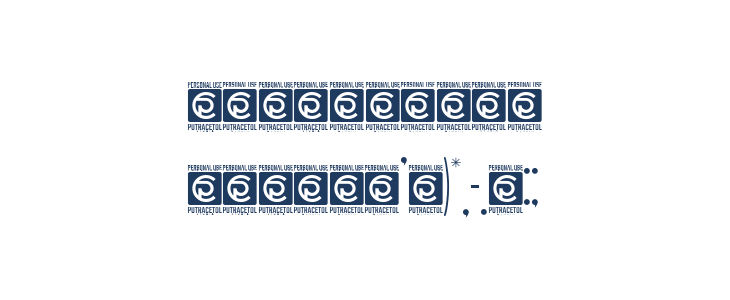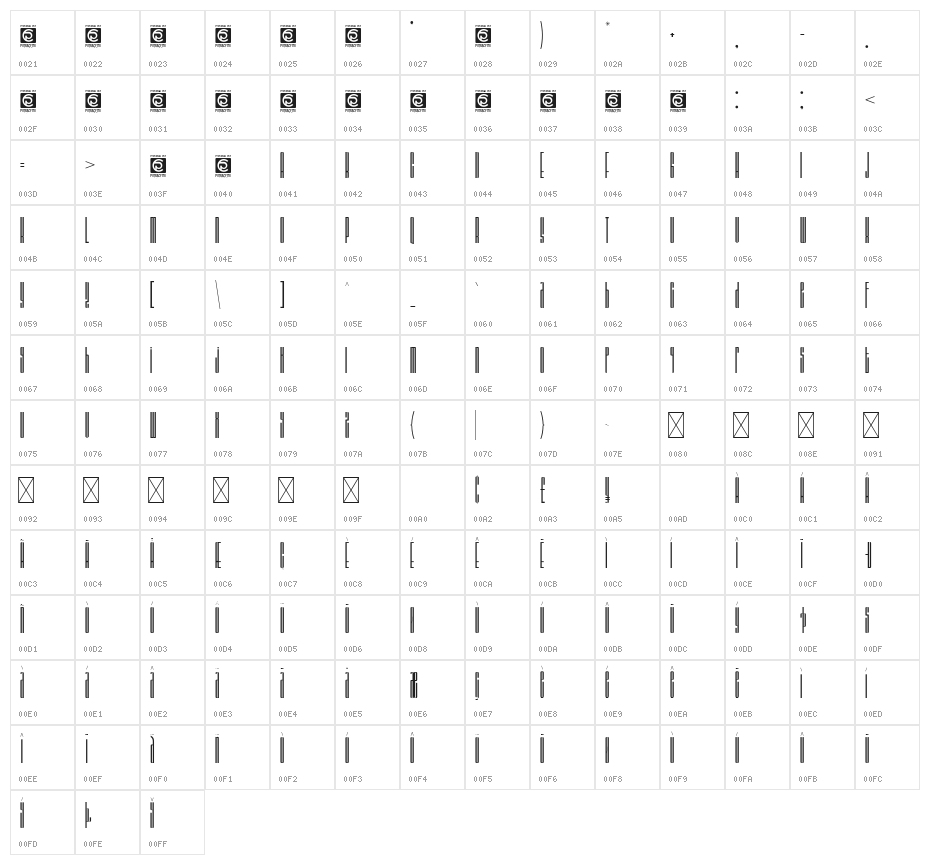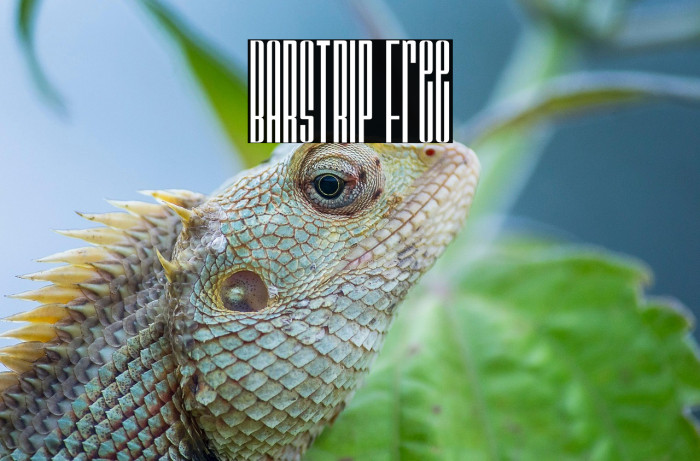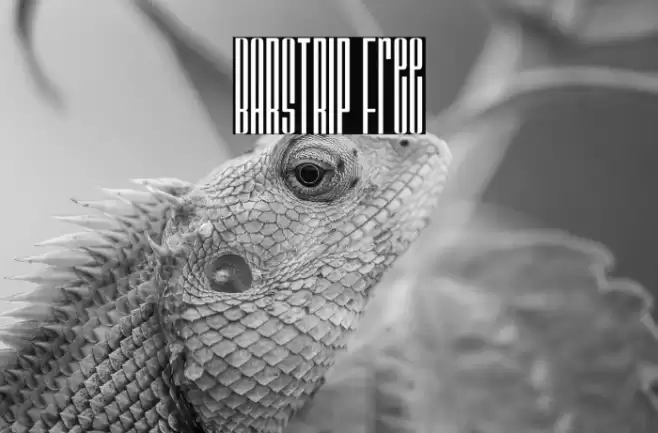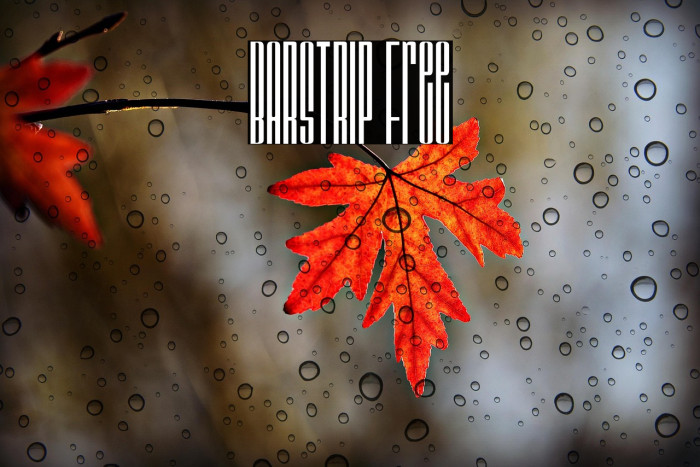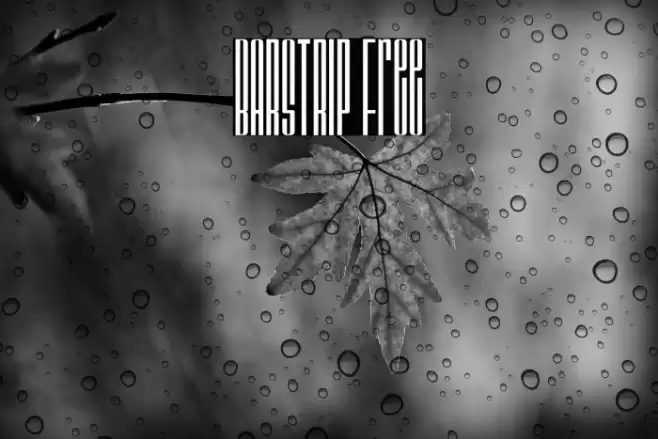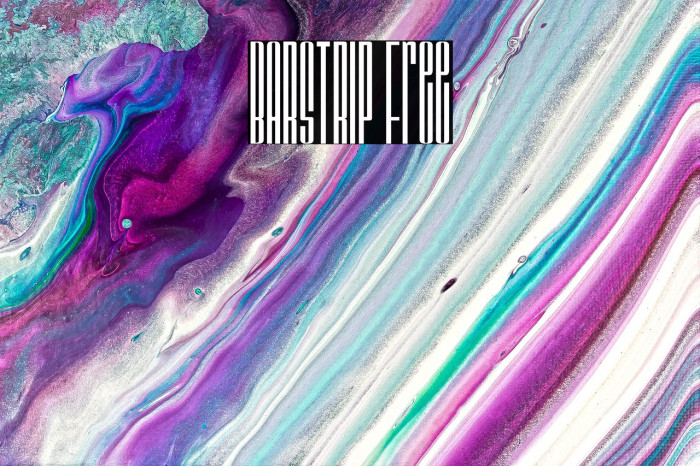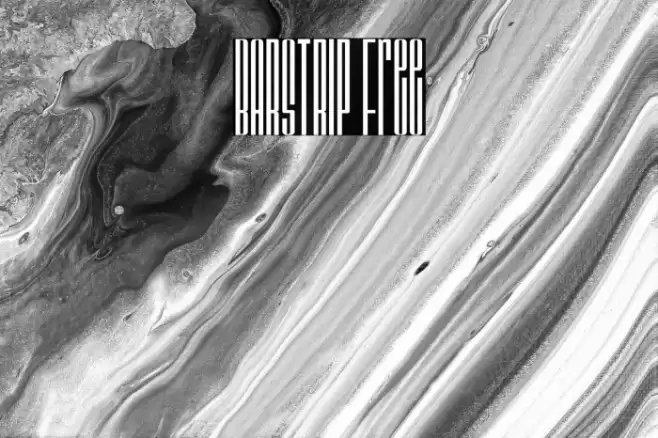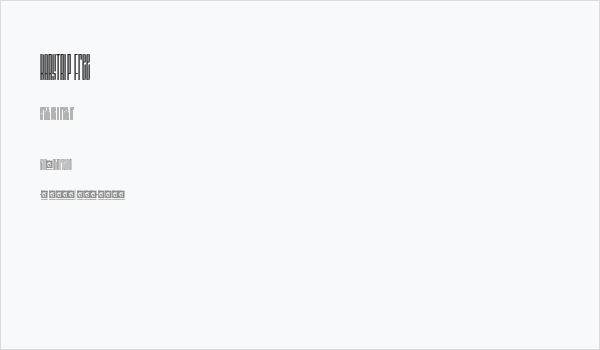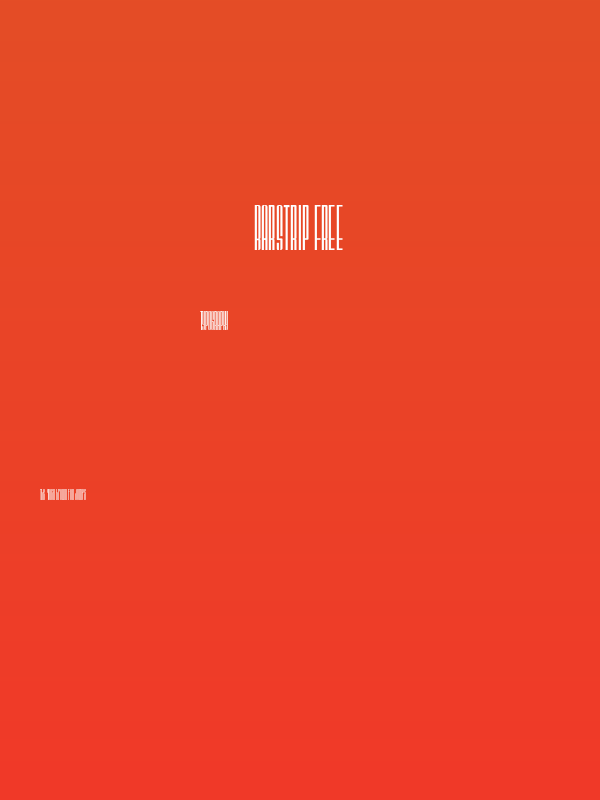
BARSTRIP Free Font
BARSTRIP Free Description
This font features a highly condensed and elongated design, characterized by tall, narrow letters with uniform stroke widths. The uppercase and lowercase letters maintain a consistent vertical alignment, creating a striking and cohesive appearance. The font's geometric structure and clean lines give it a modern and sophisticated look, while the minimal spacing between characters enhances its compactness. The numerals and special characters follow the same stylistic approach, ensuring uniformity across all glyphs. This font is ideal for creating impactful headlines and titles, where space is limited but a bold statement is desired.
| Proposed Projects | Ideal for posters, magazine covers, branding, and any design requiring a bold, modern aesthetic. |